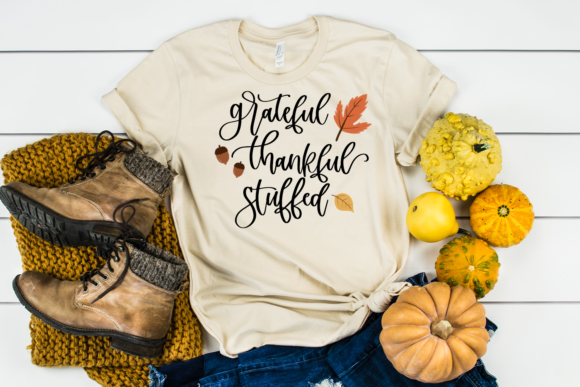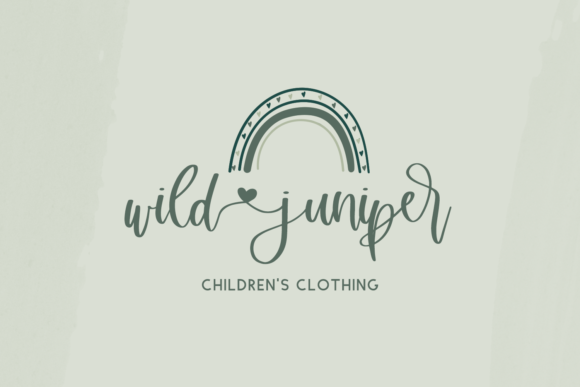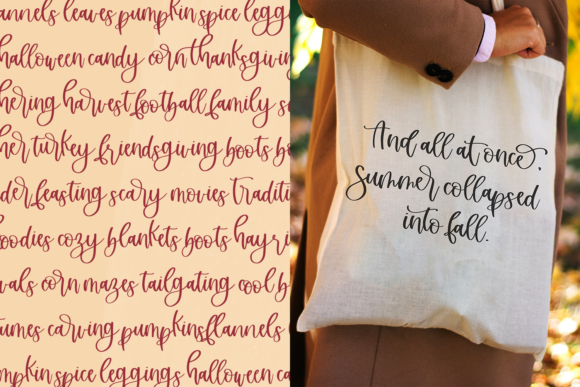
About Grateful Season Script Font
Grateful Thankful Stuffed is a romantic and sweet calligraphy typeface with characters that dance along the baseline. It will add a luxury spark to any design project that you wish to create! This font is PUA encoded which means you can access all of the amazing glyphs and ligatures with ease!